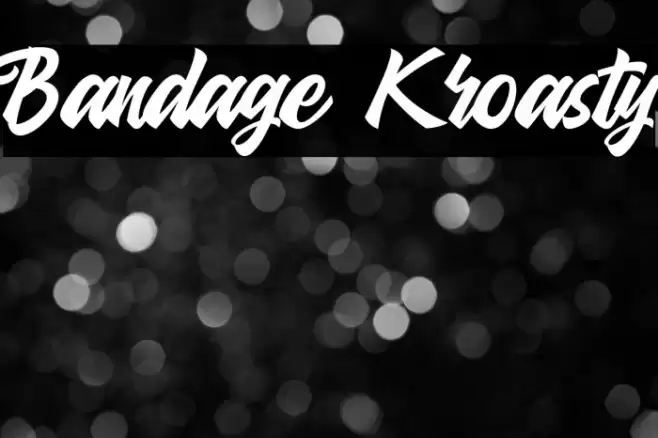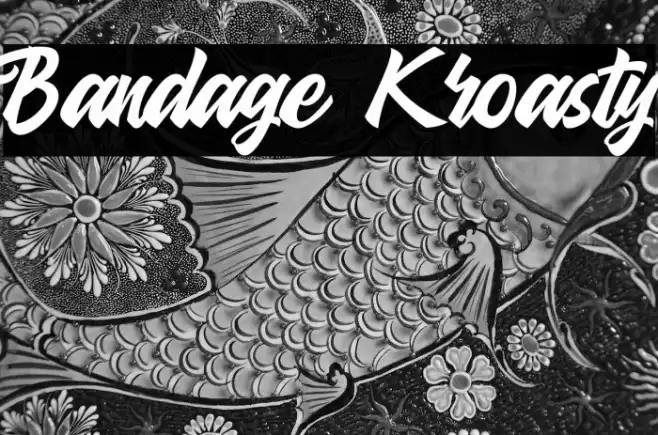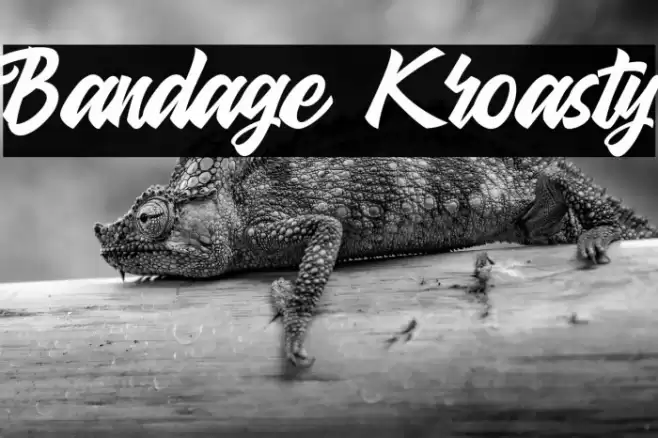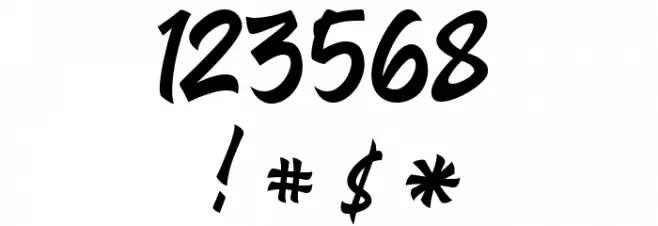
Bandage Kroasty Font
Bandage Kroasty Description
This font features a bold, energetic script style with a strong presence. The letters are connected in a fluid, cursive manner, giving it a dynamic and lively appearance. The strokes are thick and consistent, providing a sense of strength and confidence. The uppercase letters are slightly more angular, while the lowercase letters maintain a smooth, flowing form. The numbers and special characters are designed to match the overall style, ensuring a cohesive look. This font is perfect for projects that require a bold and expressive touch.
A bold, energetic script font with fluid, connected letters from Regular fonts.
- Font: Bandage Kroasty
- Proposed Projects: Ideal for branding, posters, invitations, and any design requiring a bold, expressive script.
- Character Spacing: Tight